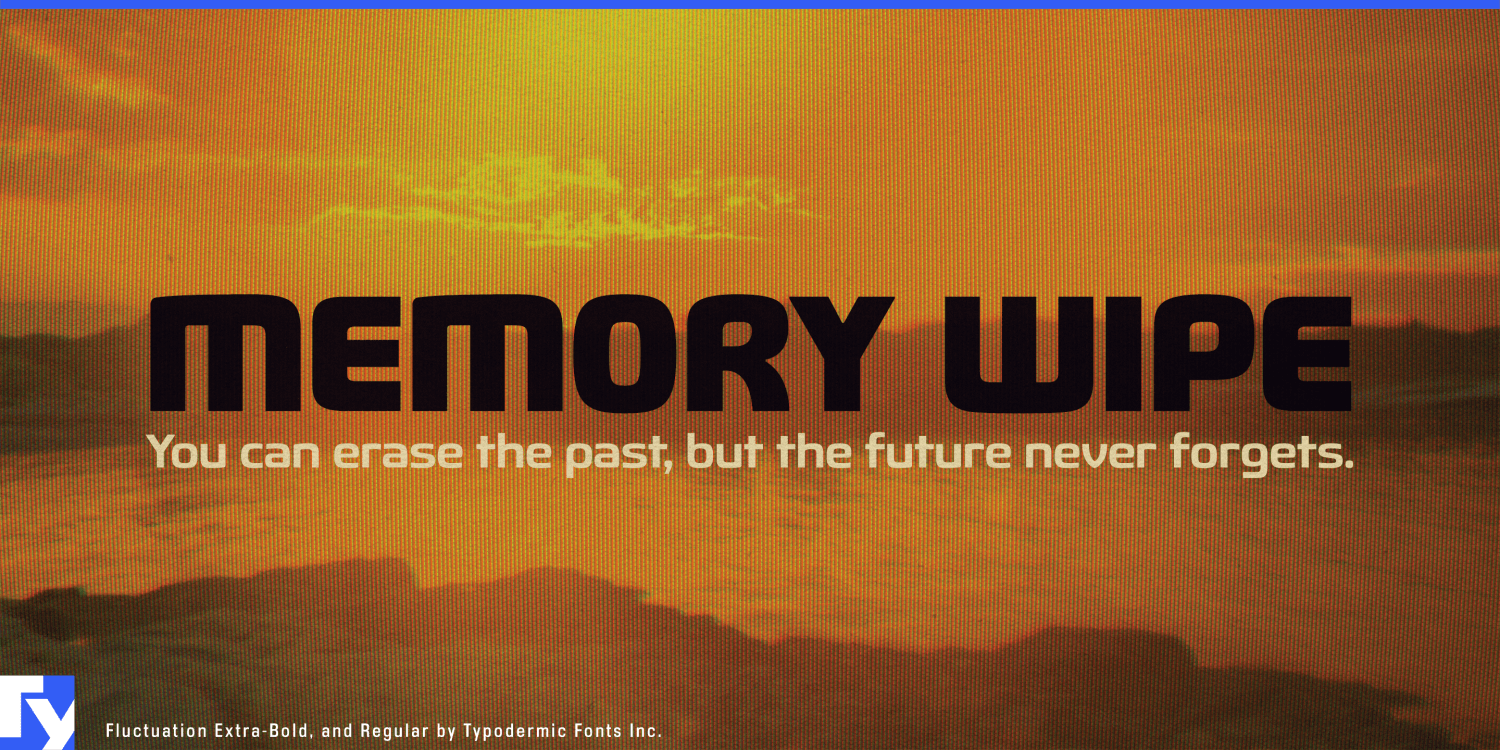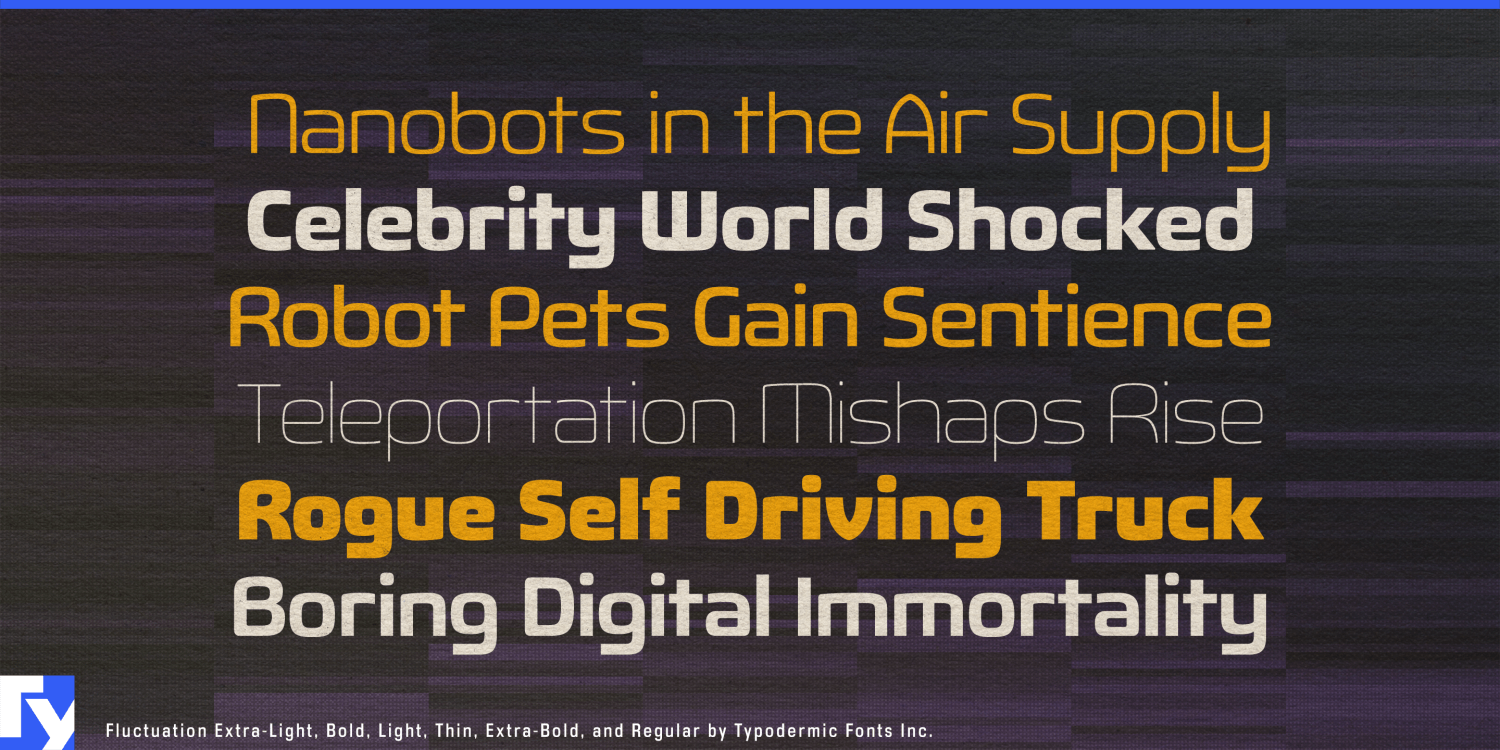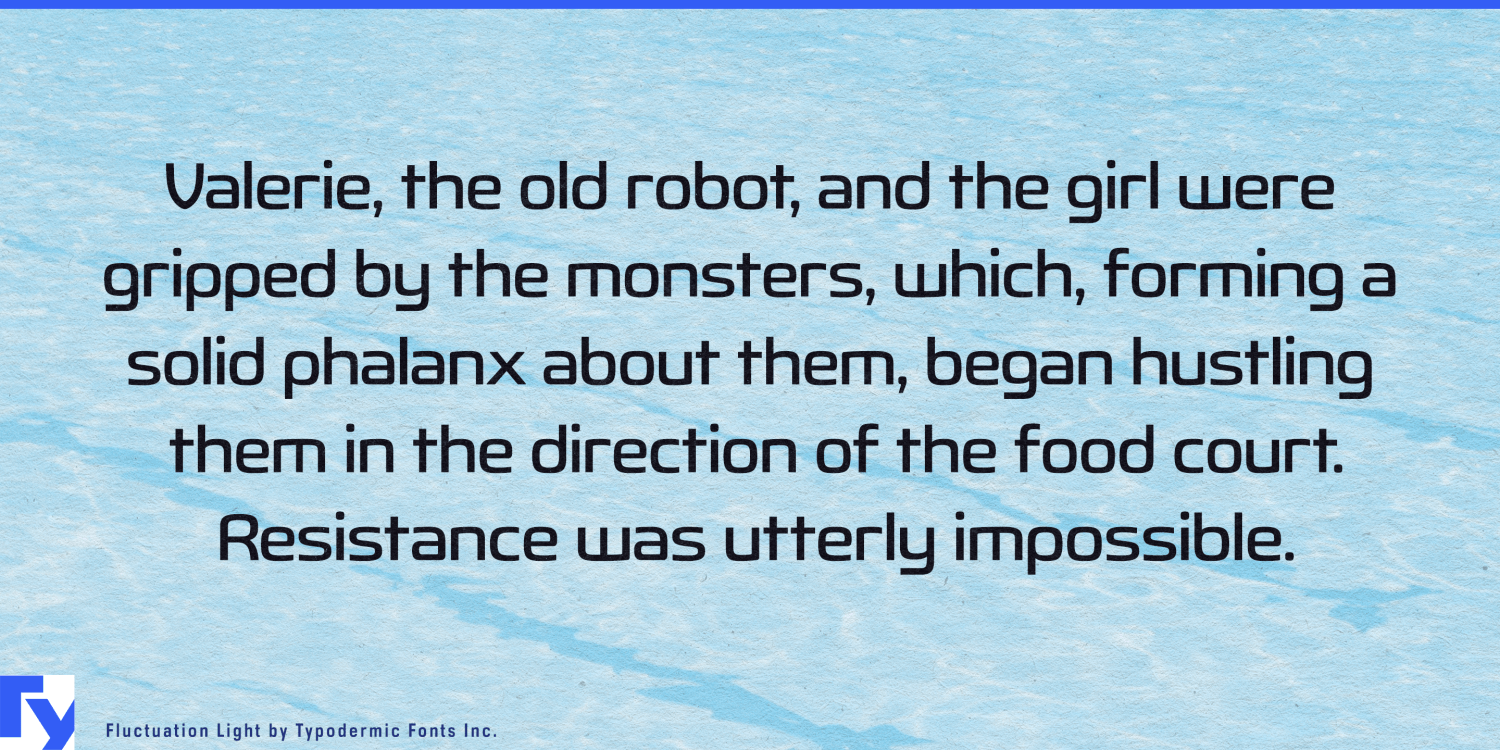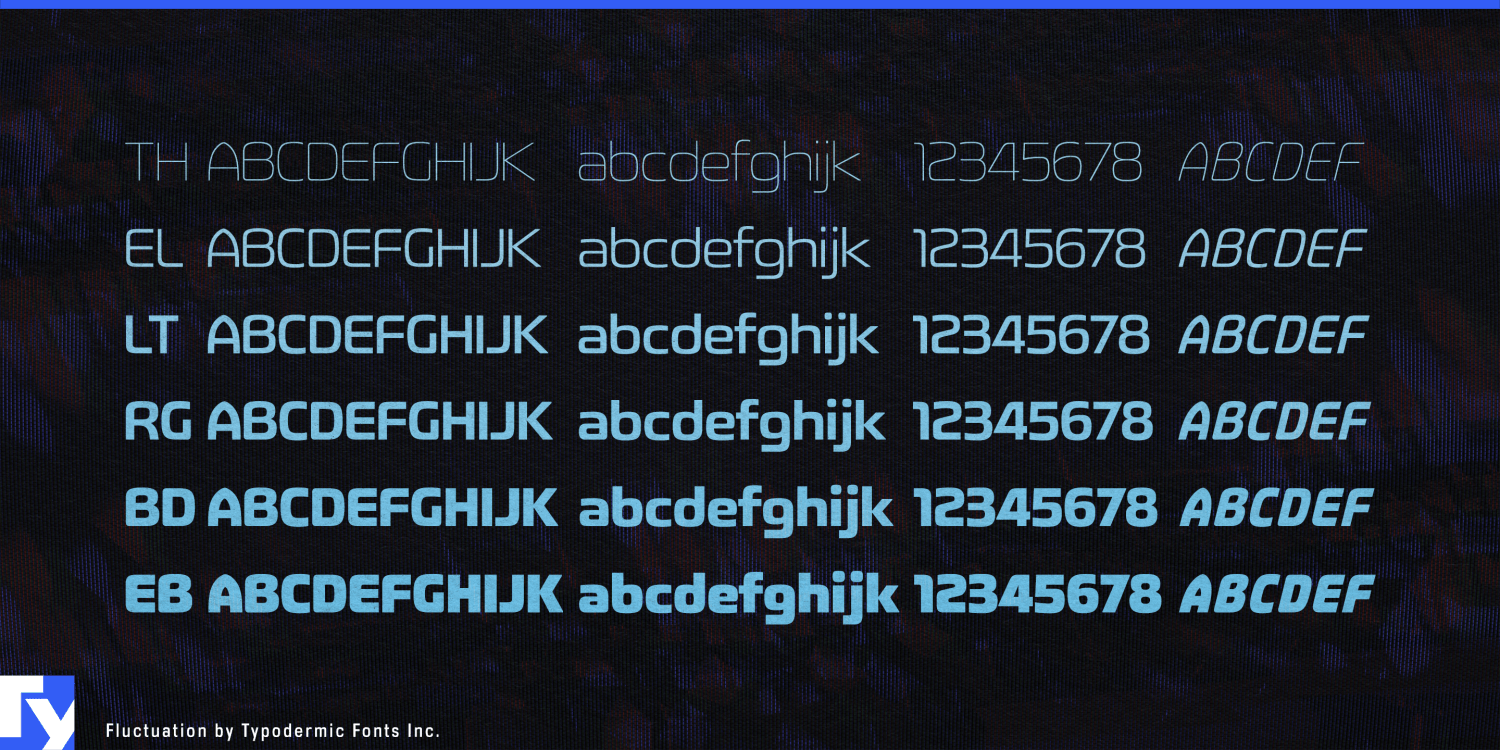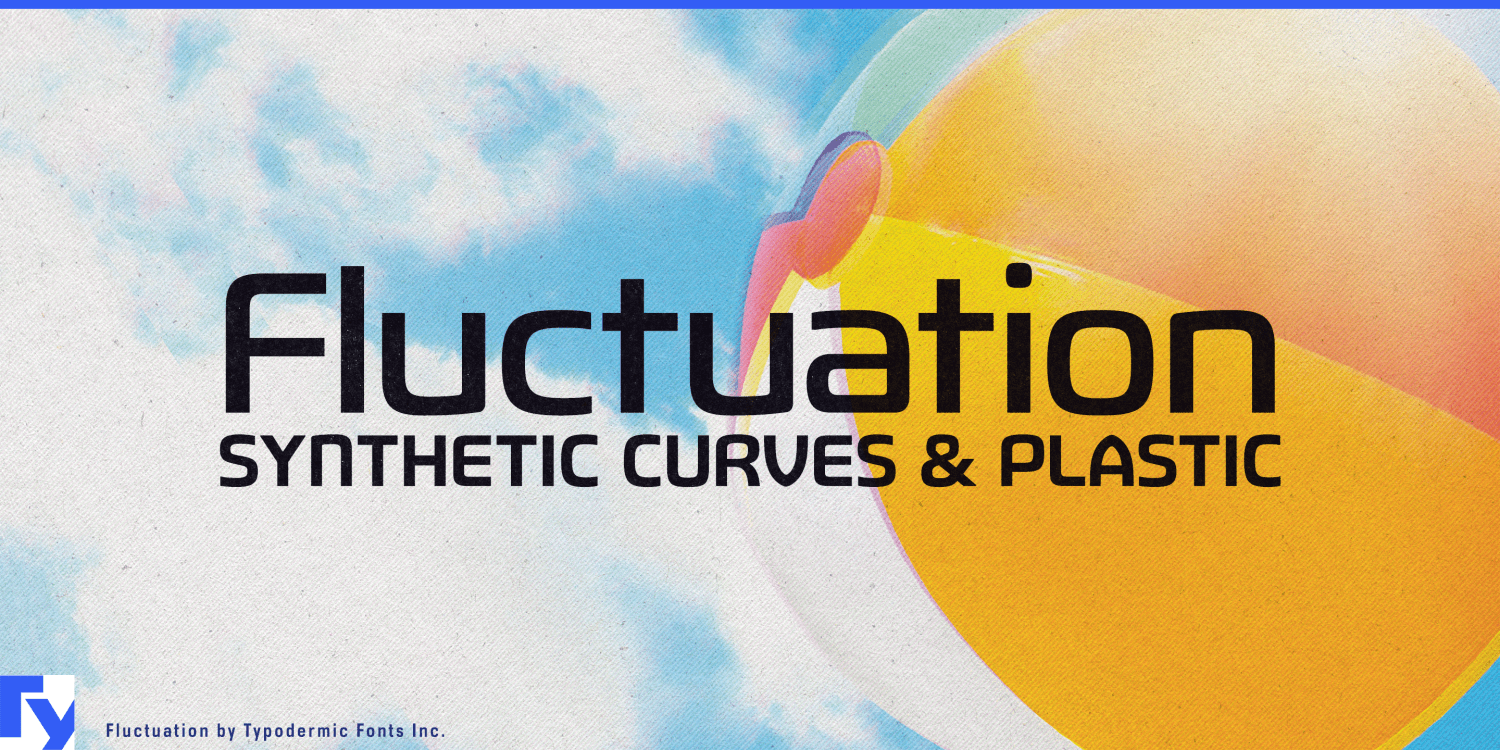
Fluctuation
About Fluctuation
Meet Fluctuation, a sans-serif typeface that seamlessly merges high-tech aesthetics with typographic elegance. Inspired by cutting-edge consumer electronics, every curve and chamfer of Fluctuation has been meticulously crafted to embody modern precision.…